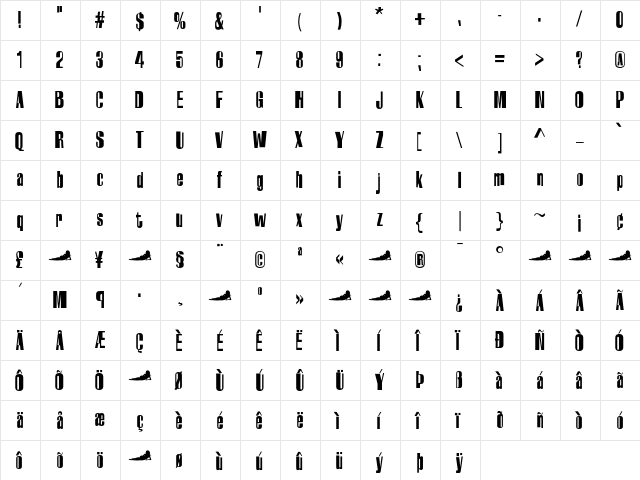
Harlem Normal
Design Context for Harlem Typeface
Harlem offers clean, dependable letterforms without strong stylistic allegiance, making it a practical choice for designers who need flexibility.